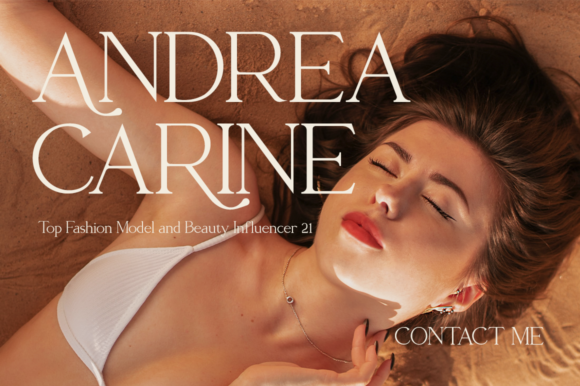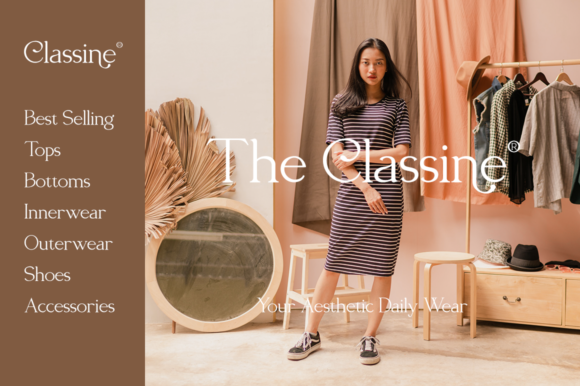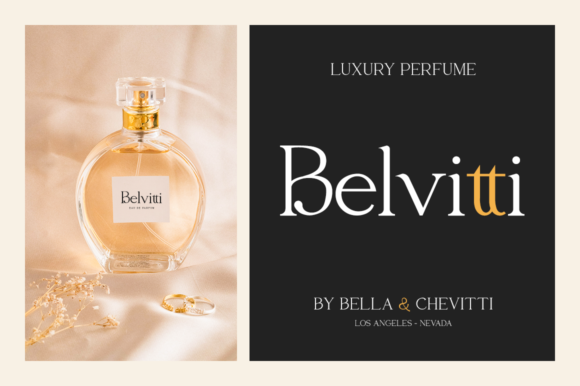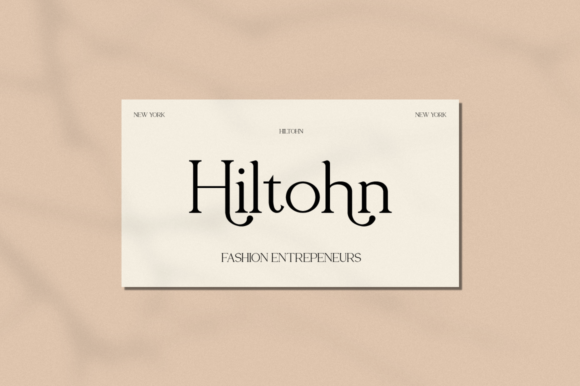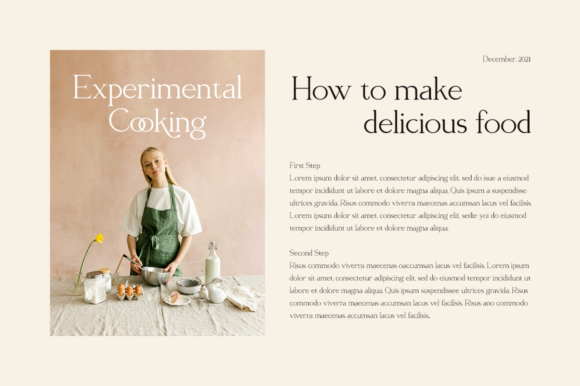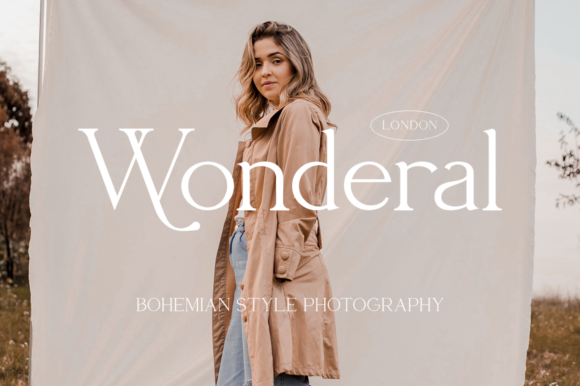
Introduction to Kinghood Font
Kinghood is a delicate and elegant serif font.
You can use this modern serif font with ligature & stylistic set for fashion, magazines, cooking websites, quotes, social media posts, labels, and many more Add it confidently to your favorite creations and let yourself be amazed by the outcome generated.
Key Features of Kinghood Font